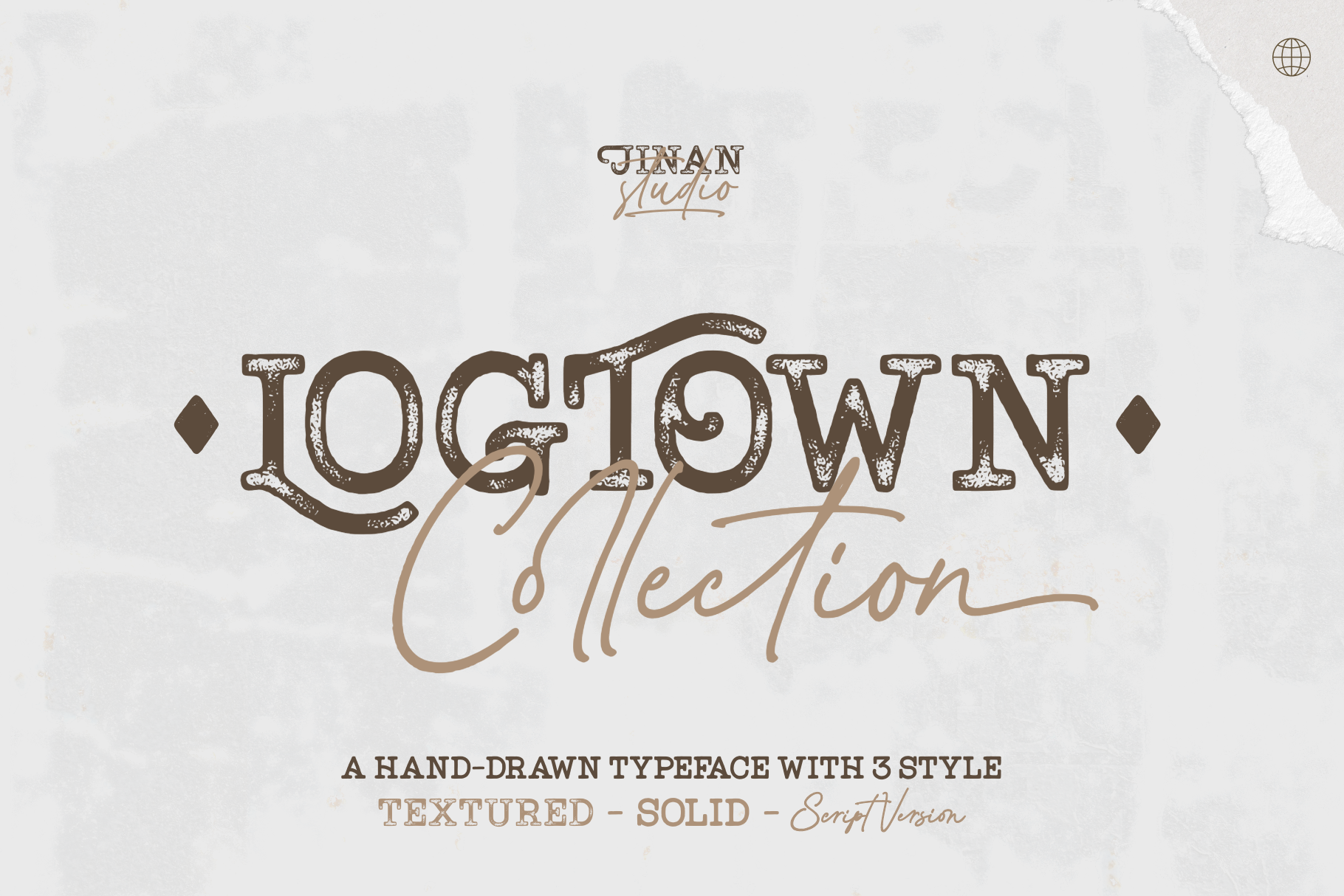
Logtown Duo - A Handdrawn Typeface
Logtown Duo is a hand-drawn font that blends vintage charm with a rugged edge. It's the perfect choice for your vintage-themed logos, branding, and adventurous designs. This font combo combines both elegant Script and Slab Serif styles, giving you options from solid to textured looks. Plus, it's got your back with support for multiple languages, making sure your message reaches everyone. Whether you're aiming for nostalgia or a modern twist on the classics, Logtown Duo has you covered for stylish and impactful designs.
A set of uppercase and lowercase glyphs
Number, symbol, and punctuation
Alternates, ligatures, and swashes (script version)